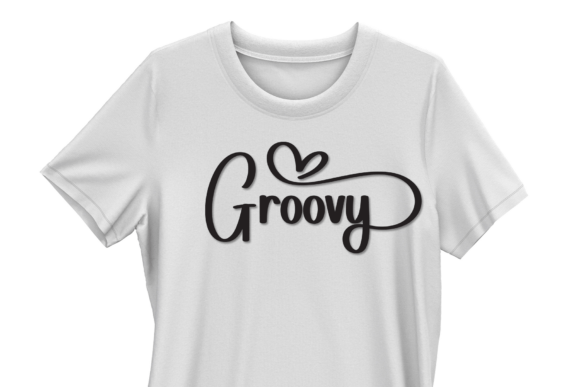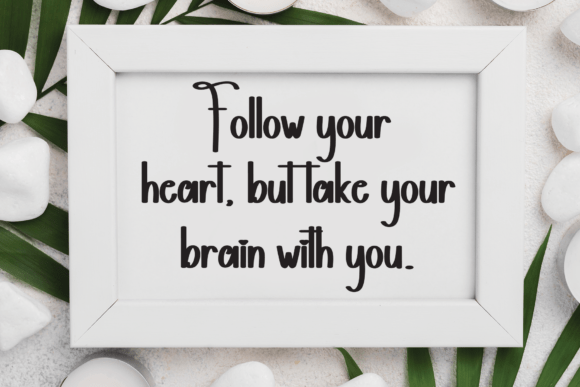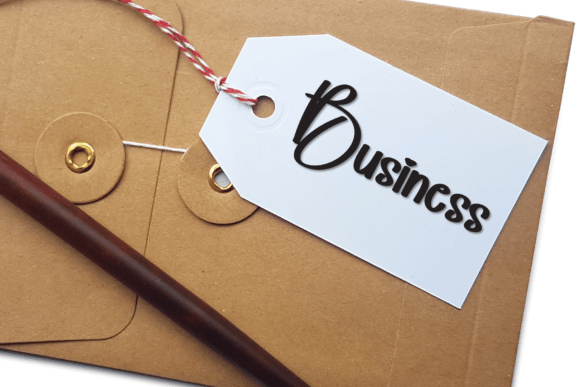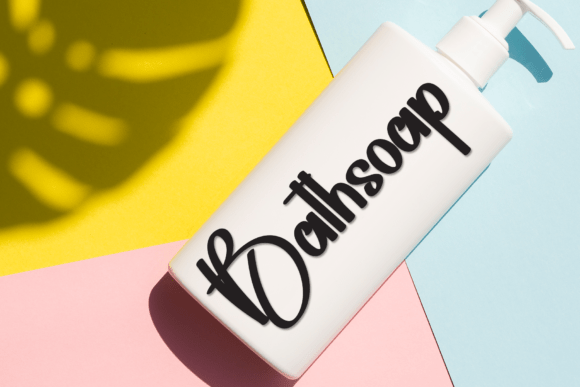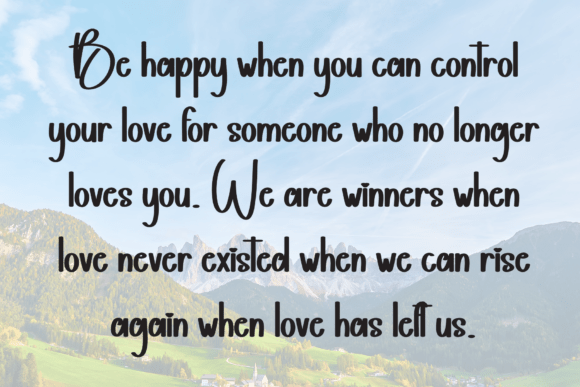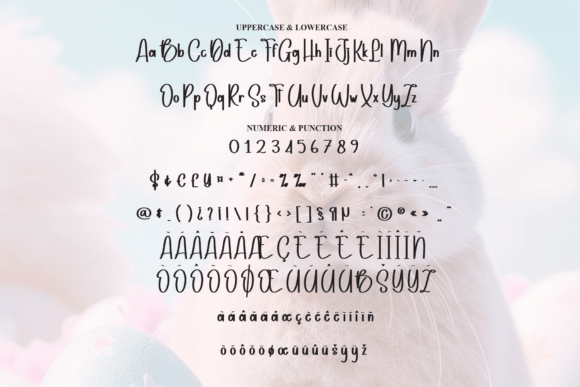
Bunny Font: The Playful and Adorable Display Font for Joyful Designs
Immerse yourself in the charming allure of a distinctly handcrafted display font known as “Bunny”. Its playful and adorable characteristics make it a fitting choice for crafting unique wedding invites, endearing cards, or any design project that requires a sprinkle of fun! Tailored for moments that call for joy, this typographical gem enhances your design narrative with its whimsical flair.
The Whimsical World of Bunny Font
Bunny Font is a one-of-a-kind, handcrafted display font that exudes playfulness and charm. Its unique and adorable design makes it perfect for a wide range of creative projects, from wedding invitations and greeting cards to posters, packaging, and more. Whether you’re a designer, crafter, or DIY enthusiast, Bunny Font is sure to bring a smile to your face and inspire your creativity.
Key Features of Bunny Font
- Handcrafted with love: Each letter and character in Bunny Font has been carefully crafted by hand, giving it a unique and personal touch.
- Playful and adorable: Bunny Font is designed to be fun and playful, making it perfect for projects that require a lighthearted and whimsical touch.
- Highly versatile: Bunny Font can be used for a wide range of projects, from digital designs to print materials, and from formal to informal occasions.
- Easy to read: Despite its playful design, Bunny Font is highly legible, making it easy to read and understand.
Using Bunny Font in Your Designs
Bunny Font is incredibly easy to use and can be applied to a variety of design projects. Here are a few ideas to get you started:
- Wedding Invitations: Add a touch of whimsy and romance to your wedding invitations with Bunny Font.
- Greeting Cards: Create adorable and personalized greeting cards for birthdays, holidays, and special occasions.
- Posters and Flyers: Use Bunny Font to create eye-catching posters and flyers for events, promotions, and products.
- Packaging: Add a playful touch to your product packaging with Bunny Font.
Tips and Tricks for Working with Bunny Font
Here are a few tips and tricks to help you get the most out of Bunny Font:
- Experiment with colors: Bunny Font looks great in a variety of colors, so don’t be afraid to experiment and find the perfect hue for your design.
- Mix and match: Combine Bunny Font with other fonts and design elements to create a unique and visually appealing design.
- Pay attention to spacing: Make sure to adjust the spacing between letters and words to ensure that your design looks balanced and visually appealing.
Bunny Font is a unique and playful display font that is sure to bring joy and whimsy to your designs. With its handcrafted charm, adorable design, and high versatility, it’s the perfect choice for a wide range of creative projects. Whether you’re a designer, crafter, or DIY enthusiast, Bunny Font is sure to inspire your creativity and help you create designs that are truly one-of-a-kind.